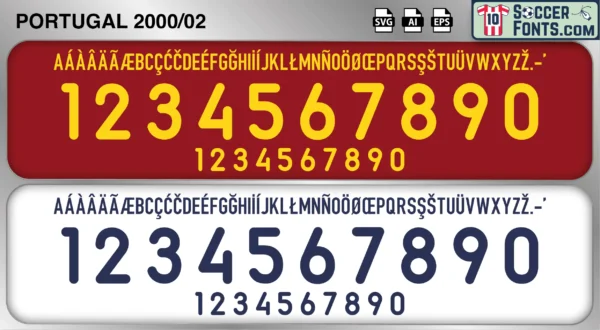
Portugal 2000-02 Font
The Portugal 2000-02 font is an editable soccer jersey lettering design in vector format inspired by the Portugal kit style used during the 2000-02 football seasons. This football font artwork is prepared for football shirt recreations, custom jersey projects, football kit mockups and sports graphic design workflows.
The 2000-02 period is closely linked with Portugal’s outstanding performances at UEFA EURO 2000, where the national team established itself as one of the most exciting sides in international football. Led by Luís Figo, Rui Costa, João Pinto, Fernando Couto, Nuno Gomes and Sérgio Conceição, Portugal reached the semi-finals and gained widespread admiration for its technical quality and attacking style. The famous victory over England in the group stage remains one of the most memorable matches in Portuguese football history, while the squad’s creativity and confidence earned praise throughout Europe. This generation helped elevate Portugal’s international reputation and laid the foundations for future tournament success.
The Portugal 2000-02 font became associated with the peak years of the Figo-Rui Costa generation and the road toward the 2002 FIFA World Cup. During this period, Portugal was widely regarded as one of Europe’s strongest national teams and continued developing a football identity based on skill, intelligence and possession-oriented play. Portugal shirts from this era remain especially popular among football shirt collectors because of their connection with UEFA EURO 2000 and one of the nation’s most talented squads. The Portugal 2000-02 font reflects a period of confidence, international recognition and football culture, capturing an era that helped establish Portugal as a permanent contender in major international competitions.